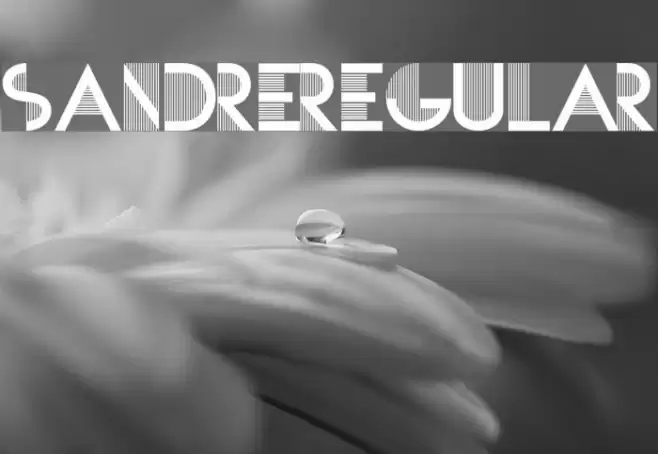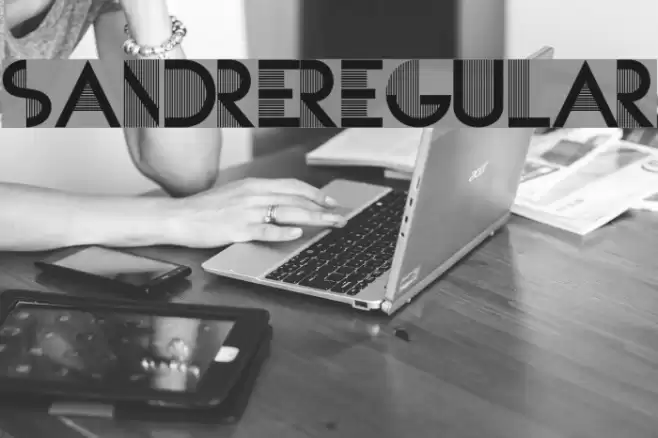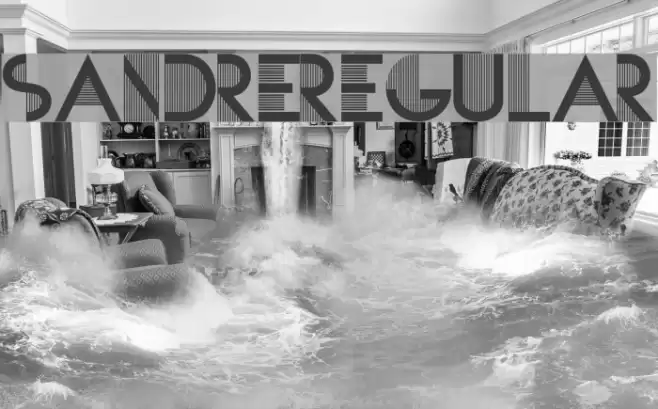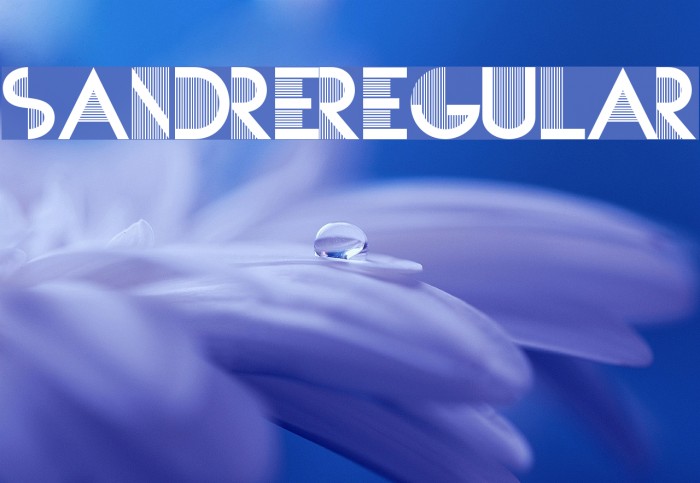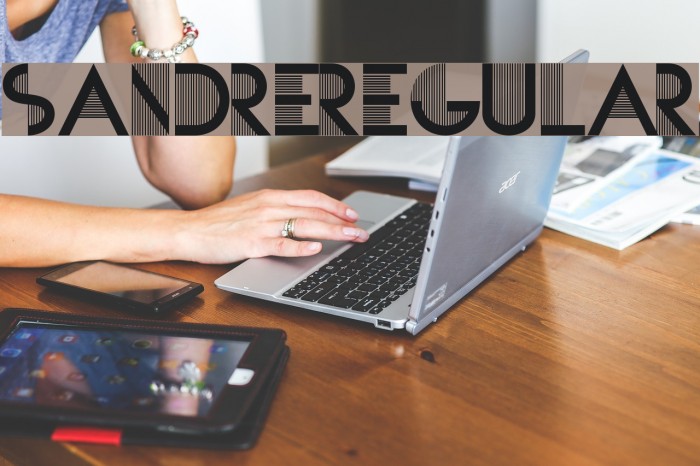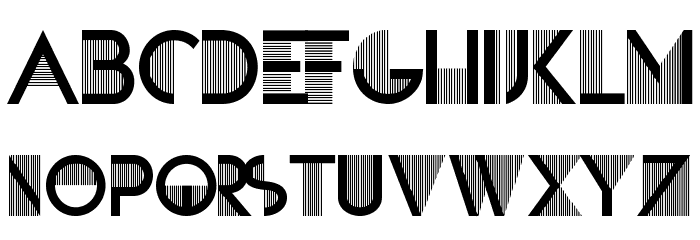
SANDRE-Regular Font
SANDRE-Regular Description
This font features a unique and modern design with a strong emphasis on geometric shapes and lines. Each character is constructed with a combination of solid and striped patterns, creating a visually striking appearance. The use of vertical lines within the letters adds a sense of movement and dynamism, while the bold, angular forms give it a contemporary edge. This font stands out due to its distinct style, making it suitable for creative and artistic projects. The uppercase letters maintain a consistent height, contributing to a uniform and cohesive look across the typeface.
A modern, geometric font with bold, striped patterns and angular forms from Fancy fonts.
- Proposed Projects: Ideal for branding, posters, album covers, and any project requiring a bold, artistic touch.